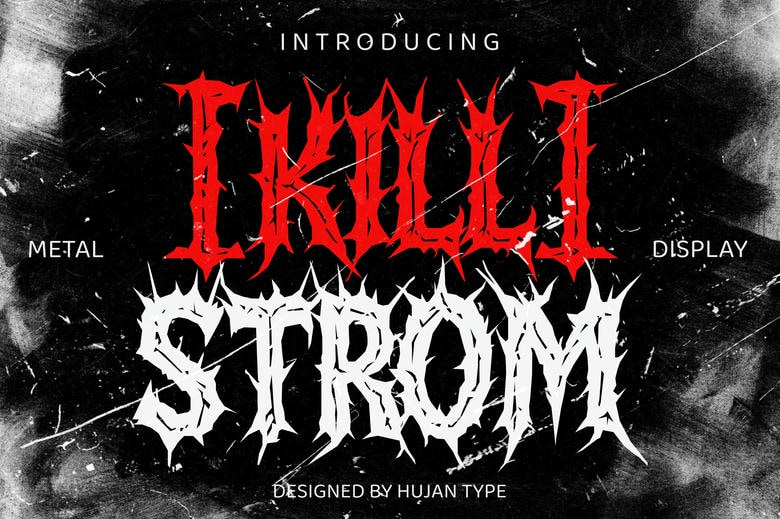
Killstrom Font
Killstrom is a brutal metal display typeface with references to the world of extreme music, deathcore band logos, underground concert posters. With its aggressive sharp edges and chaotic feel, this font is ideal when your brand needs a darker edge,
Whether that be in band logo or album covers or concert posters. It features caps letter A-Z, complete punctuation, and it is OTF and TTF formats. KILLSTROM offers the perfect screaming in type whether you need something loud, raw or rebellious.
Killstrom Display Font